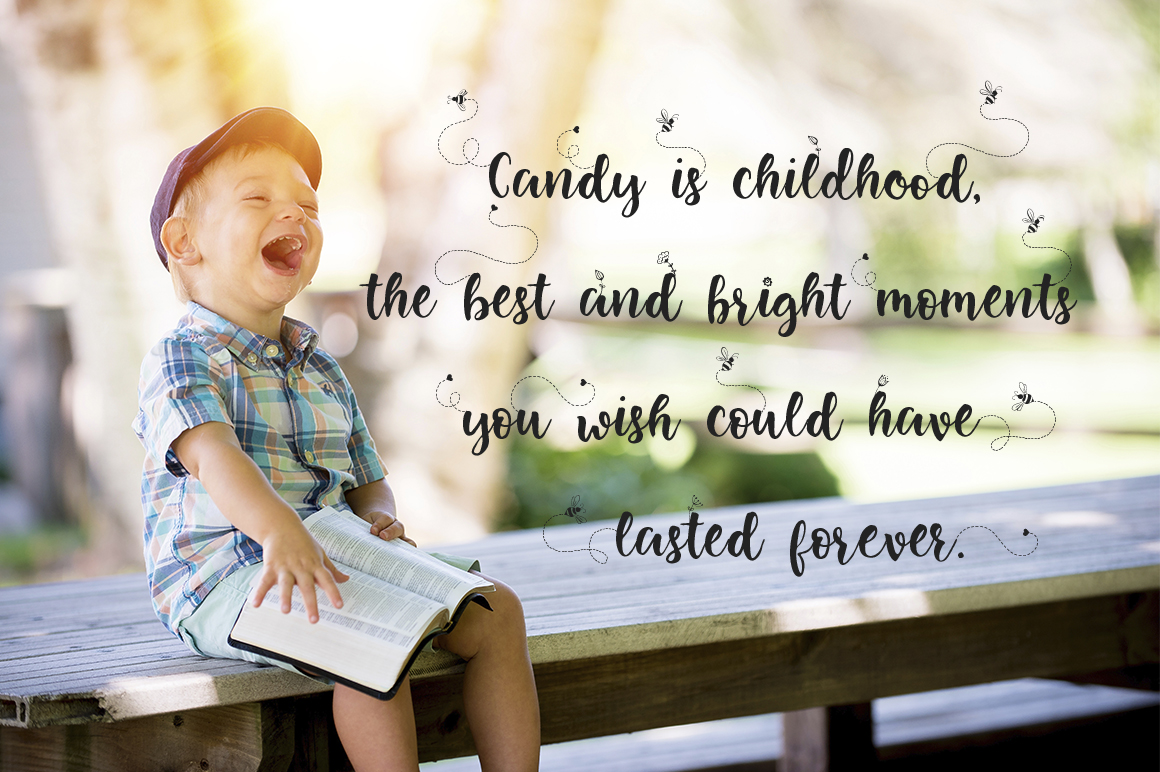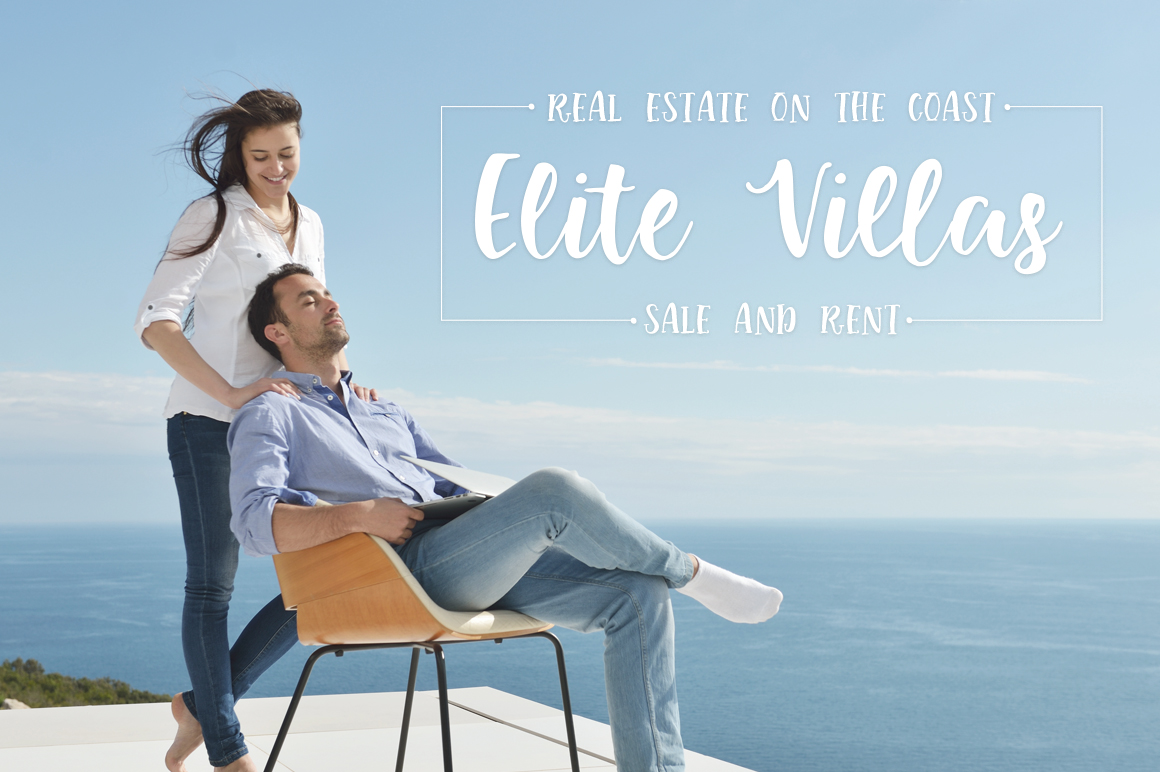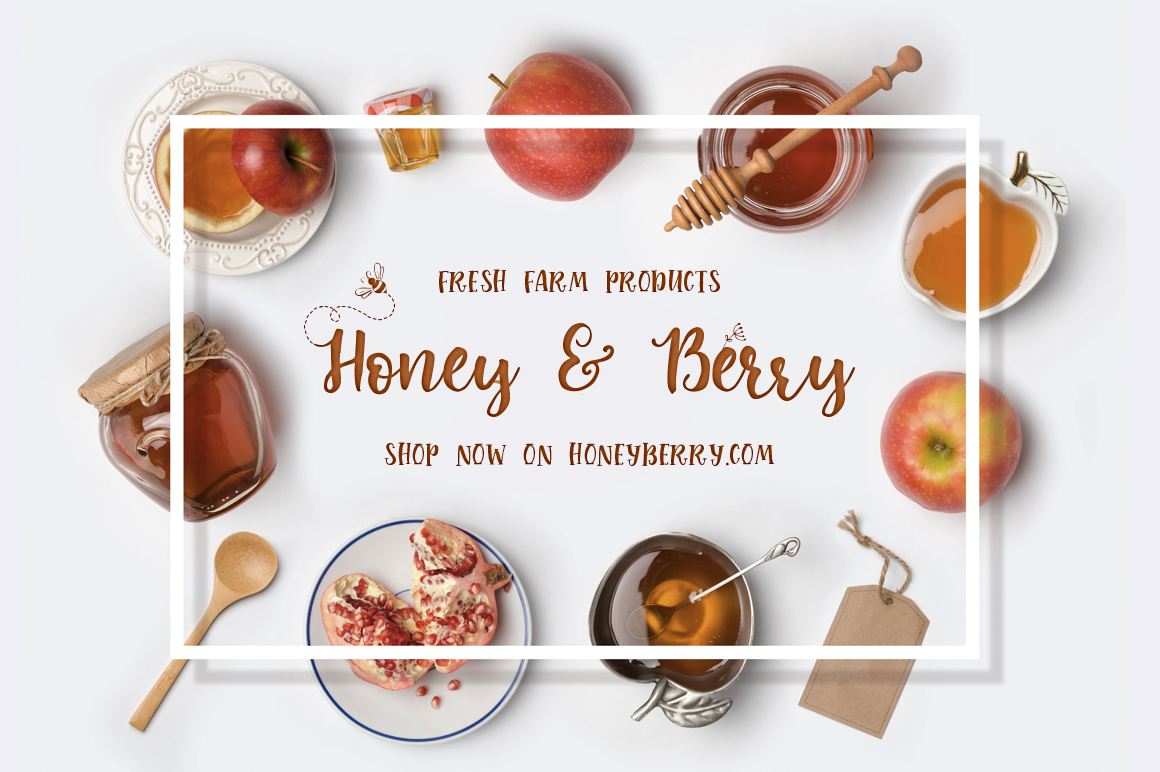
Little Bee Duo Font
About the Little Bee Duo Font
Experience the unique personality of Little Bee Duo Font, a font designed for impact. Little Bee is an adorable and embellished font set, with nearly limitless options for typographic combinations. With thematic elements included, Little Bee is a font you’ll be going back to time after time.
Little Bee Duo’s playful, embellished style shines in headlines, short-form text on packaging, and children’s book illustrations. Its whimsical nature makes it ideal for branding projects targeting a young or lighthearted audience. Avoid using it for body text or lengthy paragraphs; its decorative elements can hinder readability in larger blocks of text.
Pairing Little Bee with a clean sans-serif like Open Sans for body copy provides excellent contrast and readability. For a more sophisticated feel, consider pairing it with a classic serif font such as Garamond for a touch of elegance that balances its playful energy.
The font’s overall personality is undeniably cheerful and friendly, making it unsuitable for serious or corporate applications. However, its versatile nature, coupled with the right pairings, allows for creative adaptability across various design contexts.